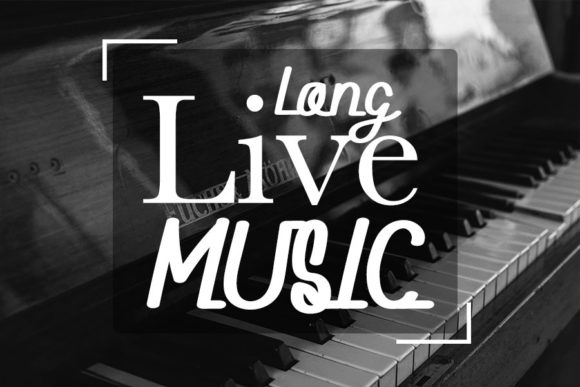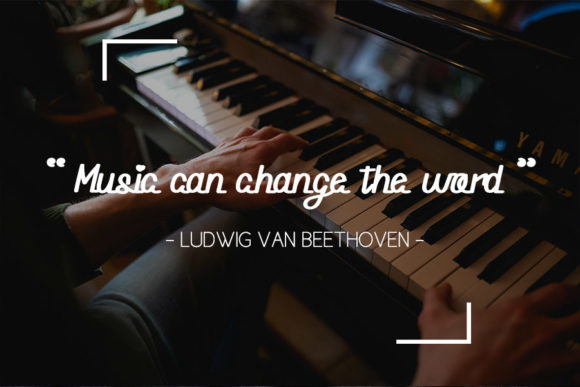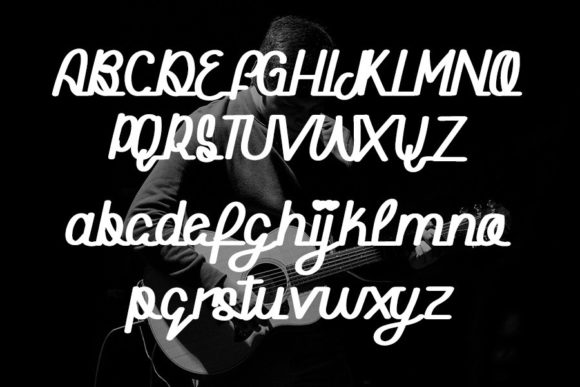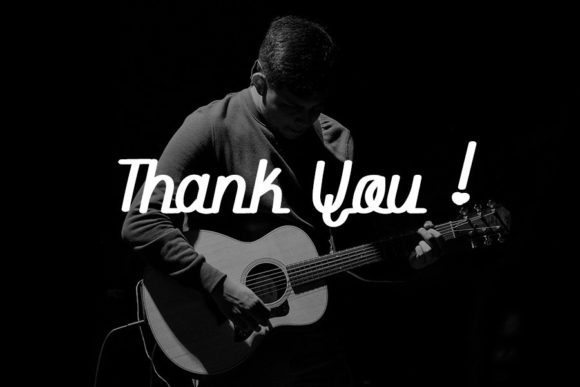
About Ceremonial Instrument Font
Ceremonial Instrument is a delicate, well balanced and refined script font. It has a classy, elegant and modern look that can be used for logos, branding, invitations, stationery, wedding designs, social media posts, and much more!